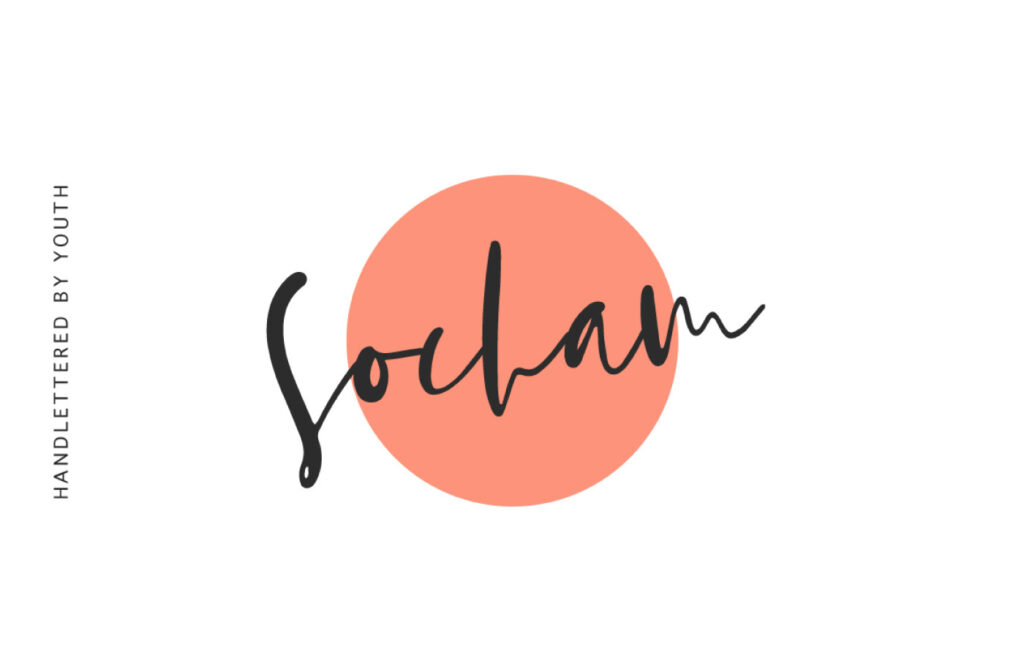
Socham Script, from Typed.one, has been carefully crafted with beautiful curves to create a font that is elegant & unique. This font includes a full set of lower & uppercase letters, a large range of punctuation, numerals, and multilingual support.